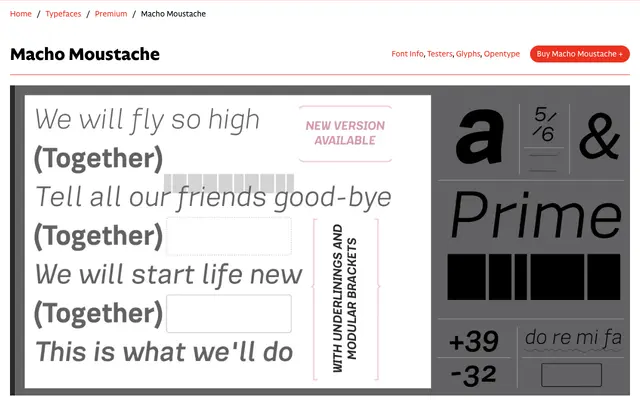
Macho Moustache
CAST · Luciano Perondi · 2017
Macho Moustache specimen from CAST
A grotesque companion to Macho Modular by Luciano Perondi, distinguished by tight apertures on key letters and designed around Stefan Themerson's concept of semantic typography.
Where Macho Modular takes an open approach, Macho Moustache pulls in the apertures on a, c, e and s to follow the tighter conventions of the grotesque tradition, while retaining the shared modular widths and letterforms of the Macho family. Five weights from Thin to Bold are offered in upright and slanted cuts, along with variable font versions of each. The family carries an extensive set of OpenType features including multiple stylistic sets, full figure variants and modular brackets and underlinings conceived for semantic typographic use.
Shares modular construction with its sibling Macho Modular but adopts the Grotesque tradition of tight apertures on a, c, e and s, placing it firmly in the grotesque sans-serif category.